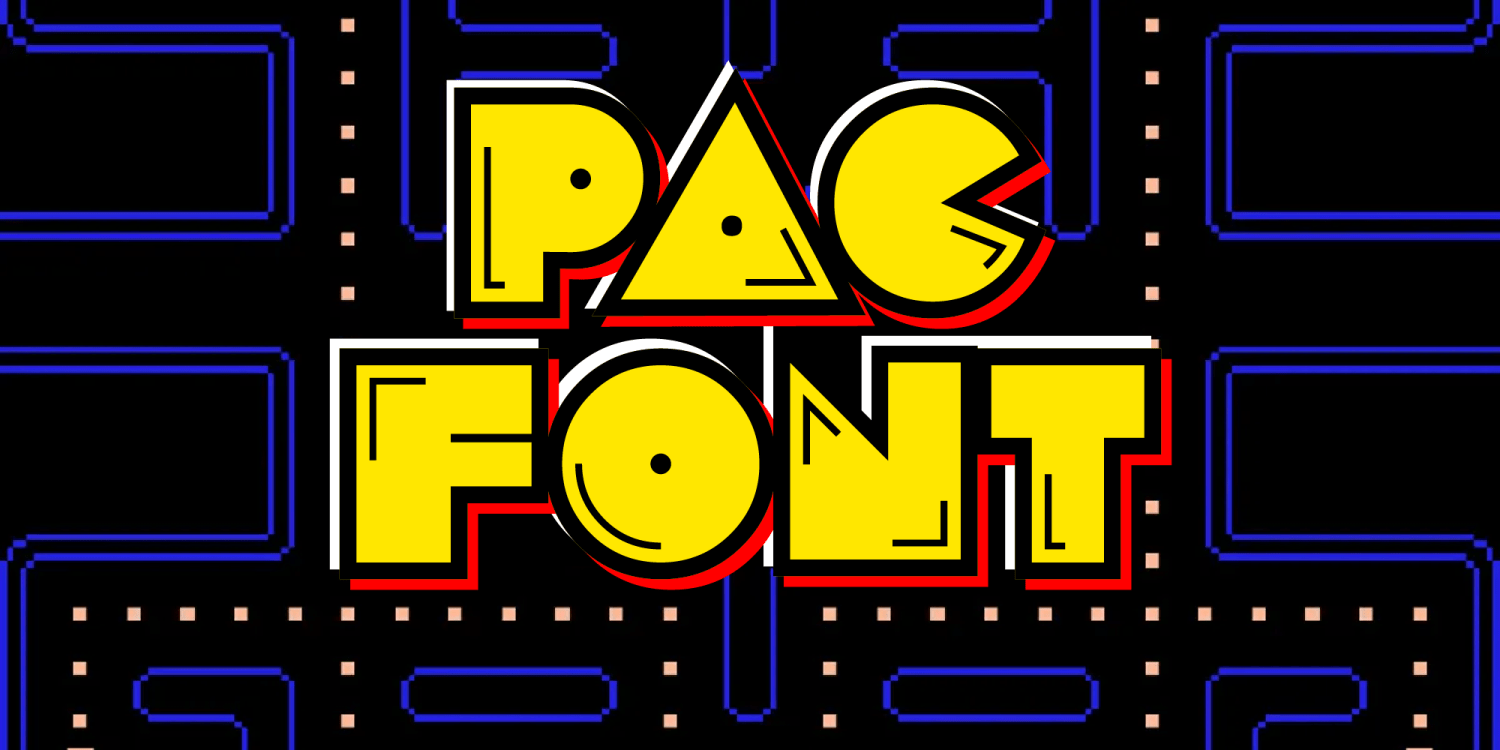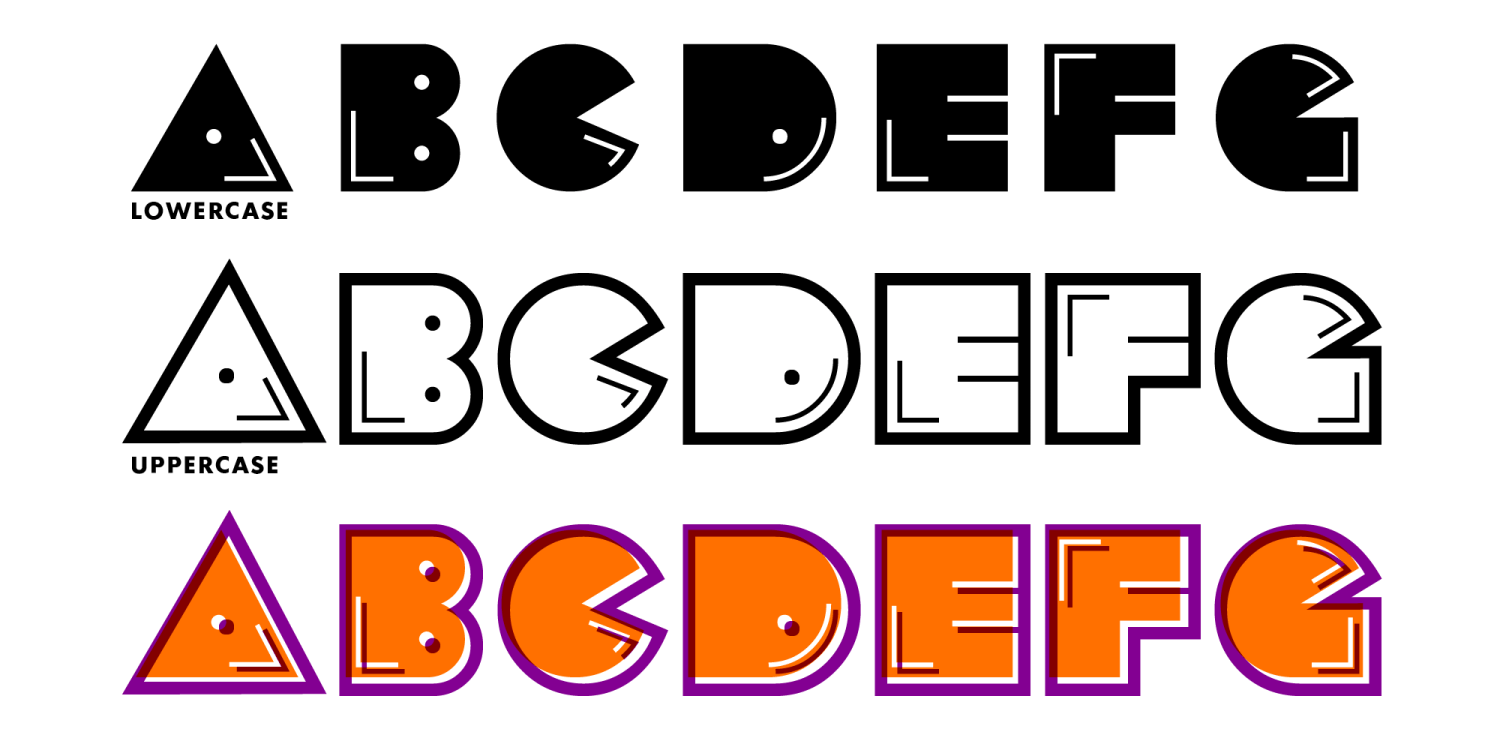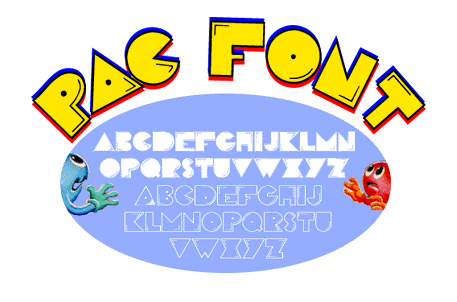
Anyone who doesn't like Pac-Man is a dork. I have severe Pac Mania on my mind 24-7. If you want to you can use this font for typing stuff or for designing things. What I am trying to say is it is basically an all-purpose set of letters. Enjoy this eighties retro-font.